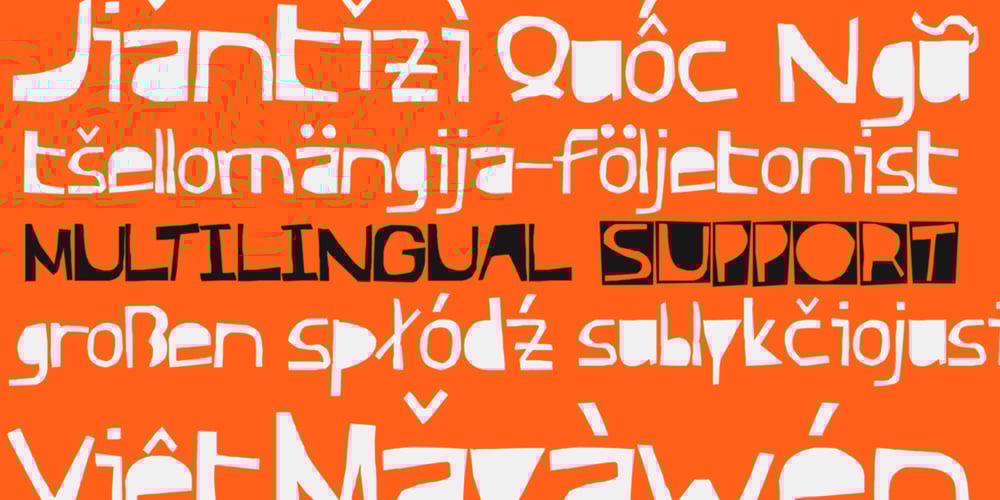
TOMO Ernest
TOMO Ernest font
TOMO Ernest Font Family was designed by TOMO Fonts and published by TOMO Fonts. TOMO Ernest contains 2 styles and family package options. Ernest is a handmade typeface with an unique yet strong personality. Say it bold with this font. Punk & Wave styles. Ideal for type based designs.